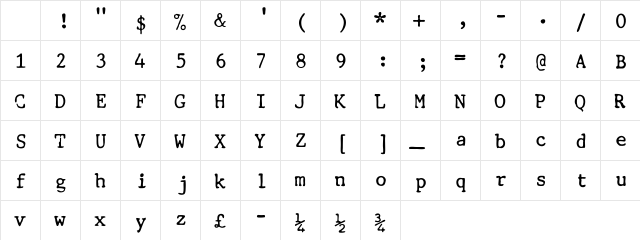
Complete Smith-Corona EC1100 Prestige Regular glyph index. Displaying only characters natively supported by Smith-Corona EC1100 Prestige Regular font.
Smith-Corona EC1100 Prestige is a composed and adaptable typeface that performs quietly and consistently across a wide range of design contexts.